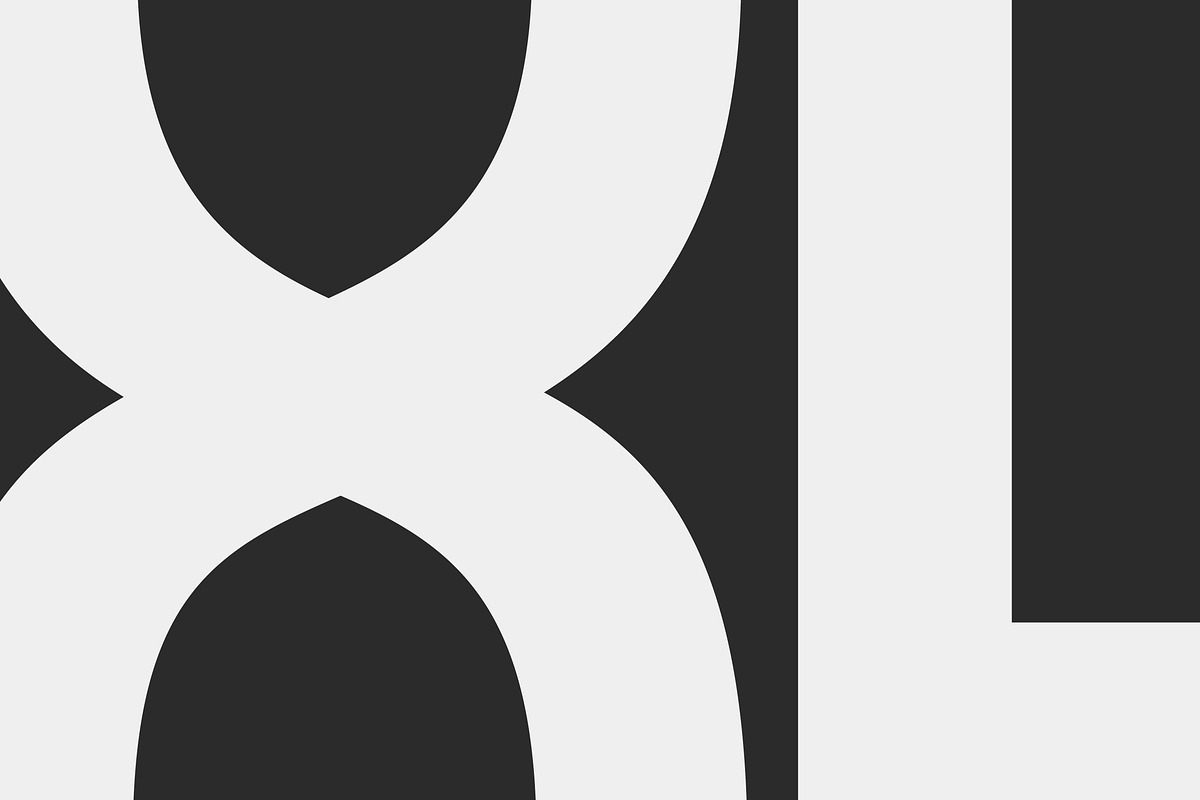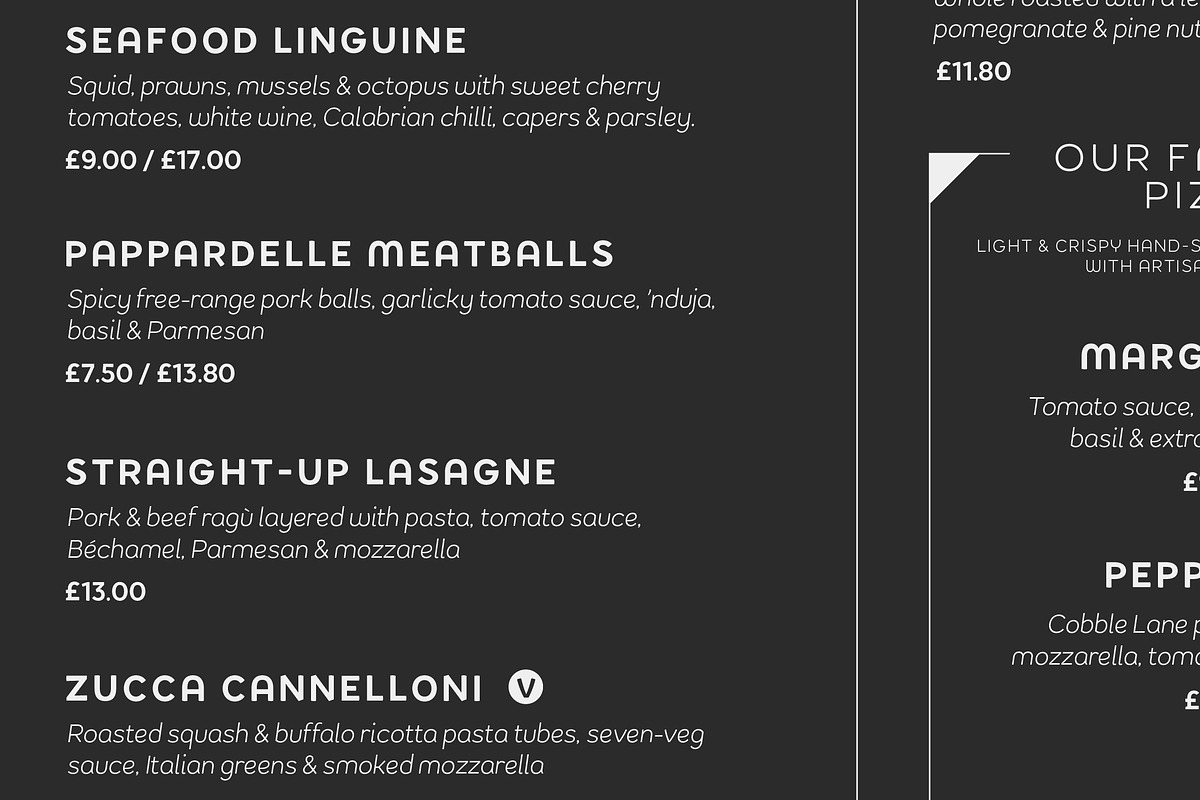
Kamber
- Improved Fraction feature code, so it's only activated contextually
- Grouped stylistic sets, and vanity names applied
- Improved vertical metrics for consistency across platforms and software
- REDUCED WEIGHTS: You'll notice we've dropped 3 weights, as feedback said they weren't really being used – we've tweaked the weight scale though, for balance. The Bold weight is now heavier than the previous Heavy weight.
Kamber is a playful and approachable, neo-grotesque sans-serif with a handful of humanist flourishes. Subtle convex terminals and a curved structure create it's friendly personality and bouncy rhythm. If you're looking for a warm typeface that's affable without straying into cliché, then Kamber is your new best friend – like the labrador of typefaces.
Kamber's balanced yet quirky nature makes for a fun and interesting display face, without compromising on legibility at smaller sizes. The lowercase letters have an elevated x-height, sitting at around 70% of the cap height – this means running copy remains clear and readable.
Available in 8 weights, each with a corresponding italic, Kamber is a widely functional typeface that can hold it's own, regardless of the use case. It includes all the usual open type features for further adaptation and variation, including small caps, ligatures, stylistic alternates and more. The primary numerals are lining figures, but tabular figures, old style figures, and a combination of both are also included.
If you're looking for something to stand out from the sea of overly geometric faces and soulless helvetica variants, then Kamber is ready and waiting. Perfect for editorial design, branding or anywhere you use text – Kamber is the typeface that smiles.
- 5 weights, 10 styles
- Light, Regular Medium, SemiBold and Bold – with corresponding italics
Open type Features
- Custom and Arbitrary Fractions
- Lining Figures
- Oldstyle Figures
- Tabular Figures
- Slashed Zero
- Ordinals
- Small Caps
- Capitals to Small Caps
- Contextual Alternates
- Discretionary Ligatures
- Case Sensitive Forms
- Arrows